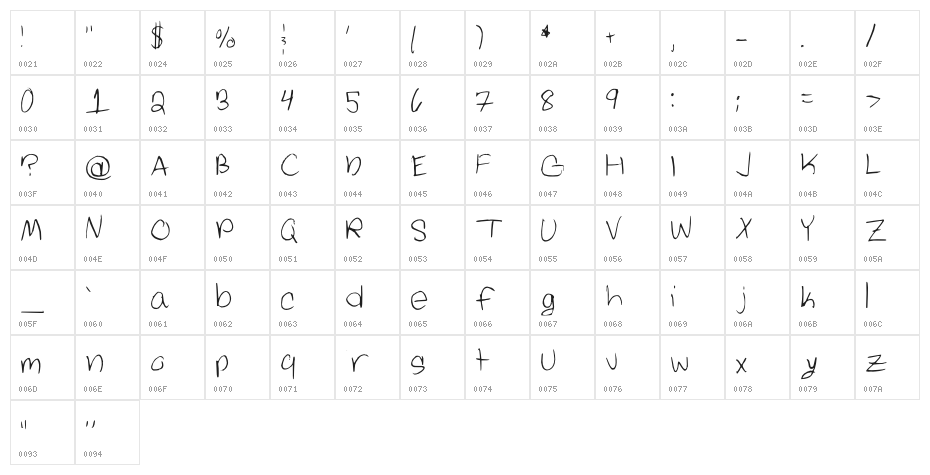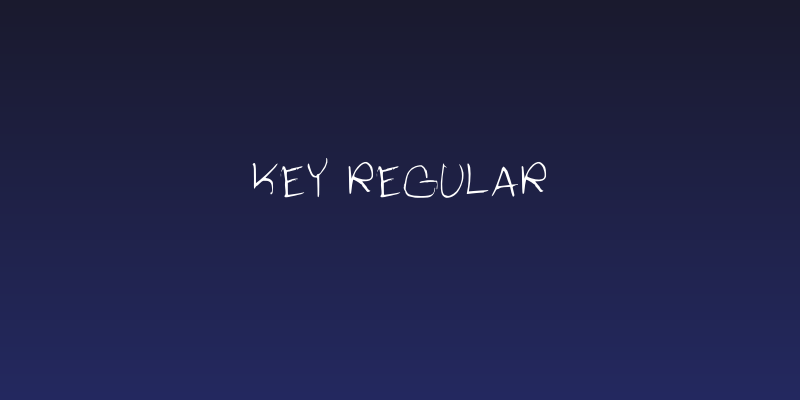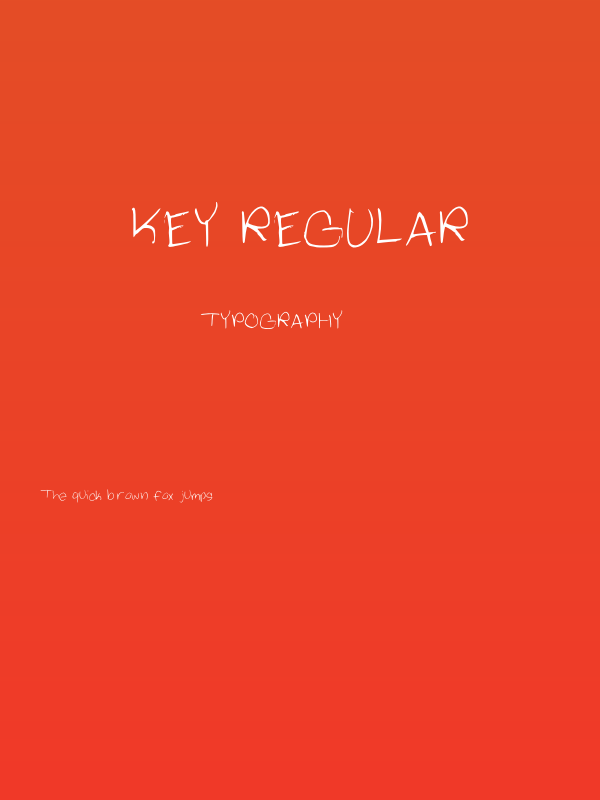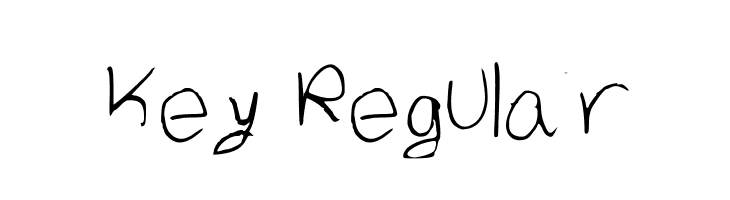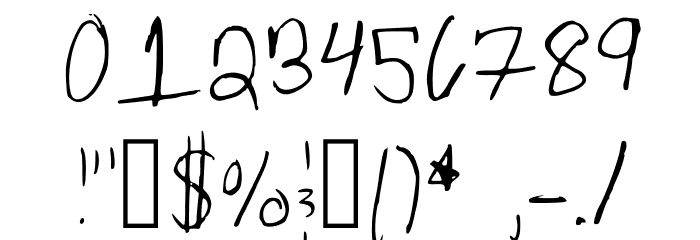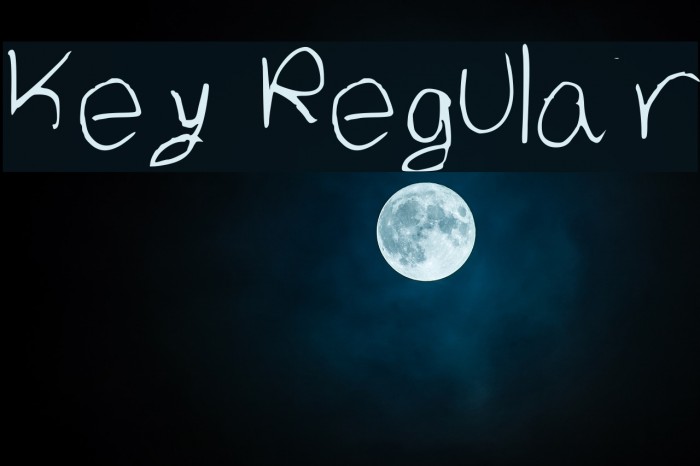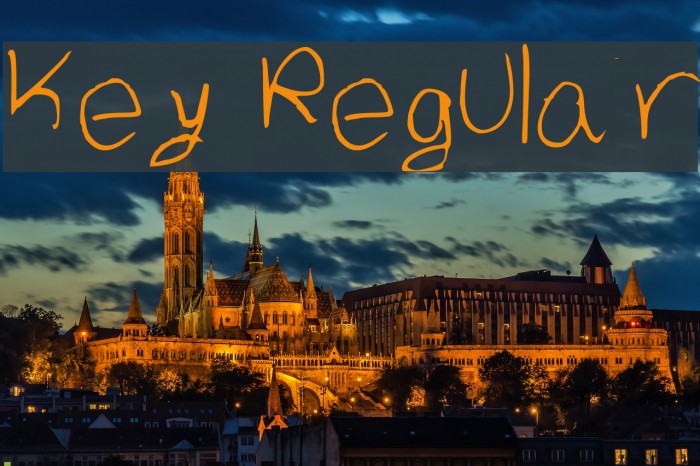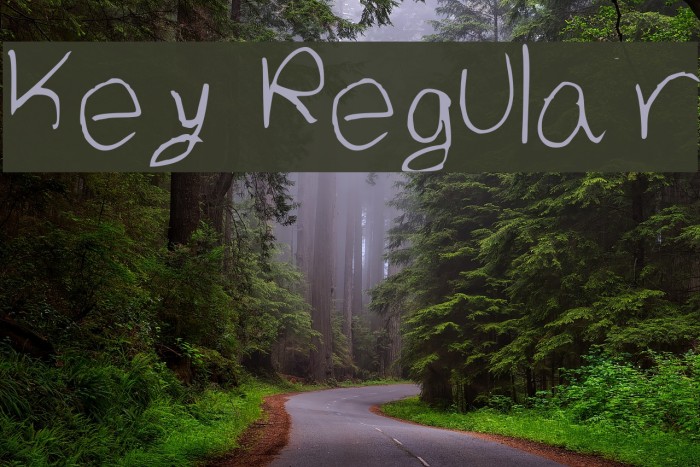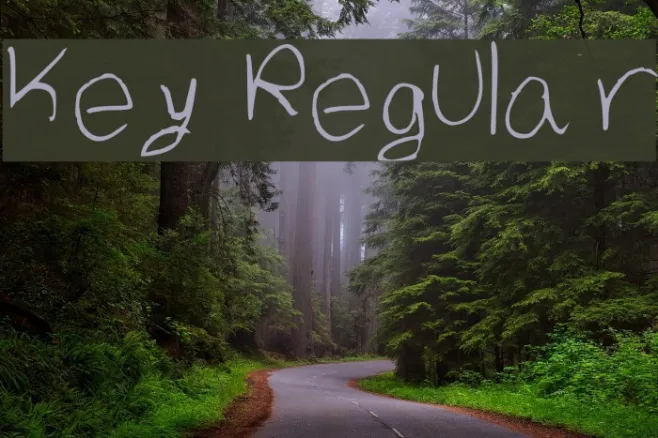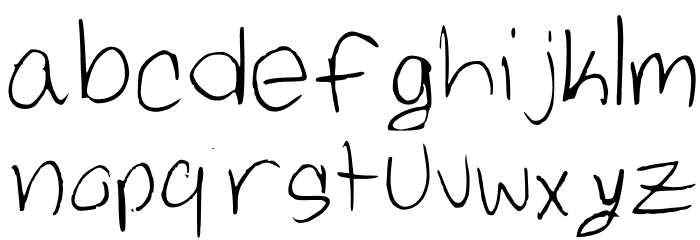
Key Regular Font
Key Regular Description
This font exudes a casual and handwritten style, characterized by its irregular strokes and playful appearance. The letters have a natural flow, with varying stroke thickness that adds a dynamic and personal touch. The uppercase and lowercase letters maintain a consistent style, while the numbers and special characters complement the overall aesthetic. The font's informal nature makes it ideal for projects that require a personal or creative touch, such as invitations, greeting cards, or artistic posters. Its unique style captures attention while remaining legible, making it versatile for various design needs.
| Use Case | Headlines, Artistic projects, Personal designs |
| Proposed Projects | Ideal for invitations, greeting cards, artistic posters, and creative projects. |